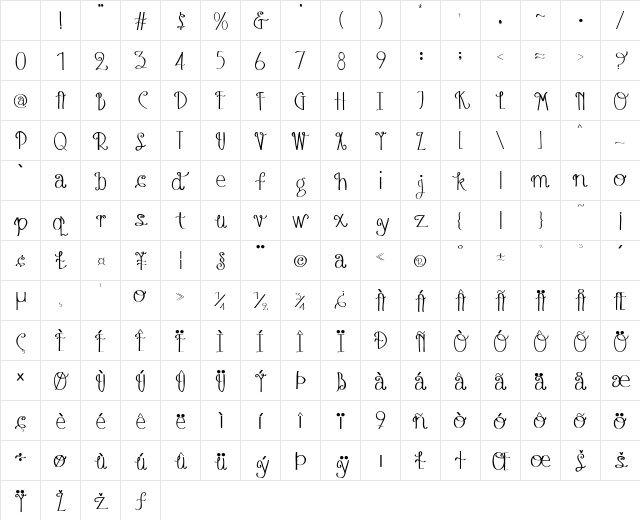
Complete Austie Bost Blueberry Muffins Regular glyph index. Displaying only characters natively supported by Austie Bost Blueberry Muffins Regular font.
Austie Bost Blueberry Muffins is a composed and adaptable typeface that performs quietly and consistently across a wide range of design contexts.